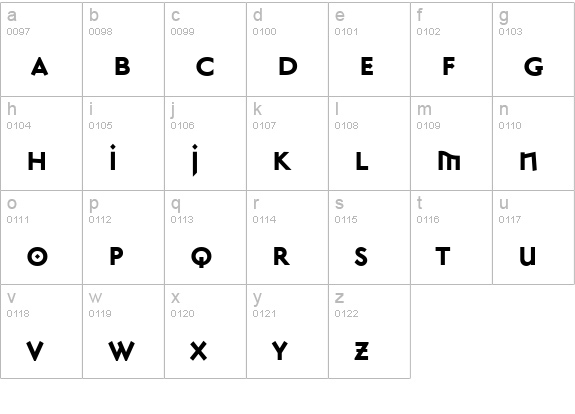
MasonSansAlternateBold Bold Font Details
MasonSansAlternateBold Bold is a strong, high-contrast variant in the MasonSansAlternateBold typeface family \xE2\x80\x94 well suited to headlines, attention-grabbing titles, and strong calls-to-action.
Introducing MasonSansAlternateBold Bold, a stunning font that exudes confidence and captures attention with its bold presence. This font is the perfect choice for those seeking a typeface that makes a statement, whether it's for a daring headline or a powerful logo design. With its strong and impactful letterforms, MasonSansAlternateBold Bold commands attention and adds a touch of sophistication to any design project. Its clean lines and well-defined contours make it easy to read, ensuring that your message is delivered with clarity and impact. But what sets MasonSansAlternateBold Bold apart is not just its striking aesthetics, but also its availability as a free download. That's right, you can freely access and download this incredible font at FontsMarket.com. Whether you are a professional designer or a hobbyist, this generous offer allows you to enhance your creative endeavors without breaking the bank. So why wait? Take advantage of this opportunity and elevate your designs with the remarkable MasonSansAlternateBold Bold font. Be it for creating impactful headlines, eye-catching posters, or memorable branding, this font is sure to impress. Download it now from FontsMarket.com and let your creativity shine with this exceptional typeface.